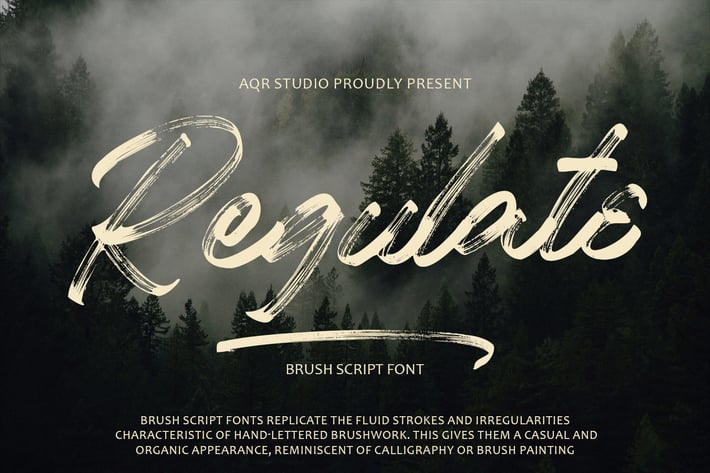
Regulate Brush Font
Regulate Brush Font is a manual lettering with brush pen + bonus Swash, This font is a great combination for any product and business. Regulate Brush Font comfortably for vintage design, classic design, photography, branding design, T-shirts, and many more.
Regulate Brush Font Featured With :
- Basic Character and Multilingual Character
- Swash Alternates
- Standard Ligatures